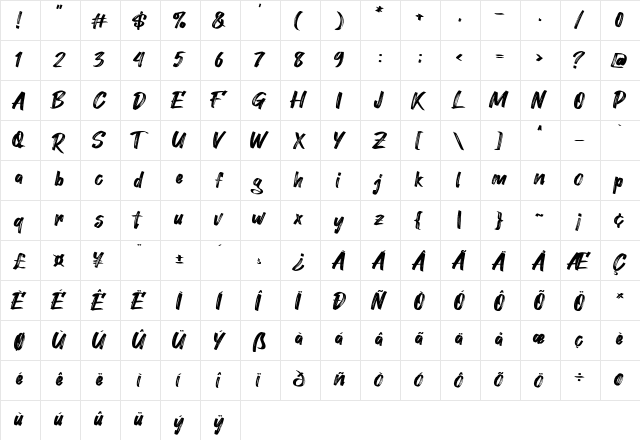
Hey August Regular
| Foundry | Khurasan |
| Designer | Khurasan |
Design Context for Hey August Typeface
Hey August is a composed and adaptable typeface that performs quietly and consistently across a wide range of design contexts.